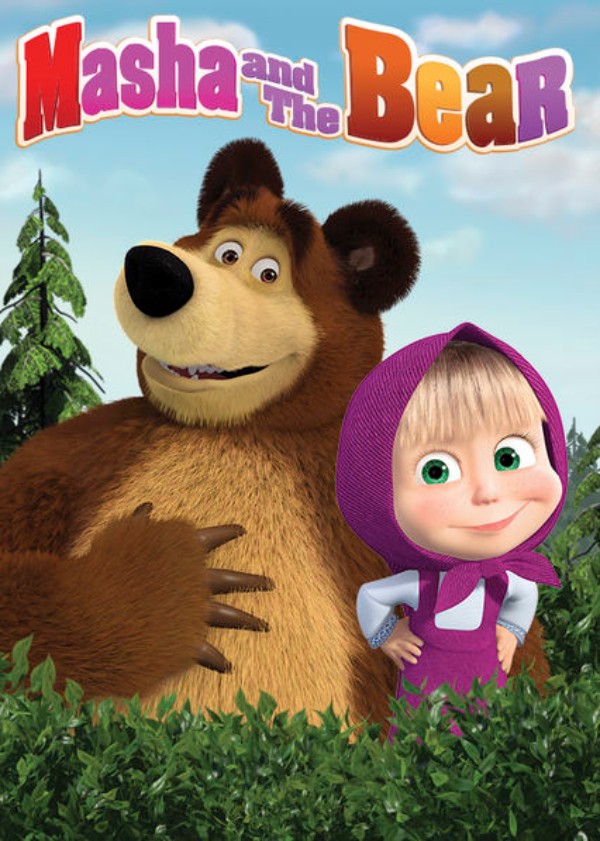
Masha and the Bear Font
AdventureMasha and the Bear is a Russian animated series that follows the adventures of a curious and mischievous young girl named Masha and her friendship with a kind and patient bear.
The title of Masha & the Bear uses a heavy-stroked slab serif typeface called Aachen Bold. Aachen was originally designed by Colin Brignall in 1969 for Letraset.